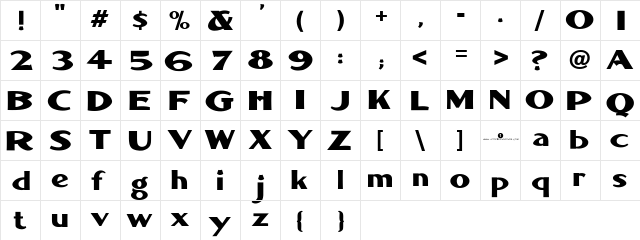
LHF Advertisers Plug ATK Regular Font Preview
LHF Advertisers Plug ATK Regular
LHF Advertisers Plug ATK Regular Font Details
Design Context for LHF Advertisers Plug ATK Typeface
LHF Advertisers Plug ATK offers clean, dependable letterforms without strong stylistic allegiance, making it a practical choice for designers who need flexibility.